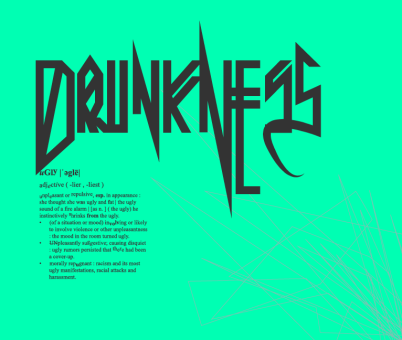
Uglymann
Typography that begged for its own birth from the "Hatefull Posters" project. As it were developing these posters, it became necessary to attach the title of posters with a single font.
Sharp angles and their characters, both uppercase and lowercase, has a descending direction giving this typeface arrogance and aggressiveness.